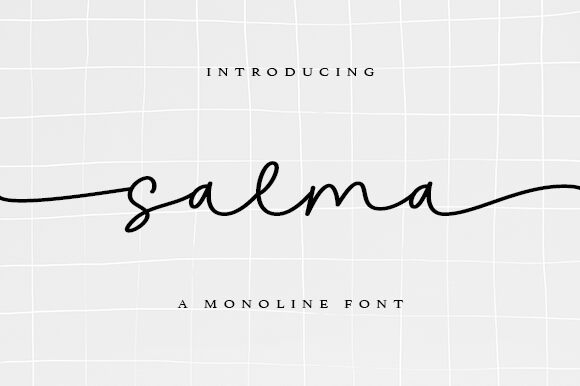
Salma
Salma, crafted by the creative minds at Wahyu Studio, brings the charm of handwritten artistry to your fingertips. This sophisticated semi-light script font dances between casual and ceremonial, making it a versatile addition to any designer's toolkit. Salma's elegant curves and balanced weight capture the essence of bespoke calligraphy, perfect for invitations, branding, and personal projects that require a touch of finesse.
With its PUA encoding, every swirl and swash Salma offers is effortlessly accessible—unlocking a world of design possibilities. The font's unique characteristics ensure your creations stand out with a personalized flair that exudes class. Whether you're crafting heartfelt wedding stationery or designing an upscale restaurant menu, Salma promises to deliver style with every keystroke.